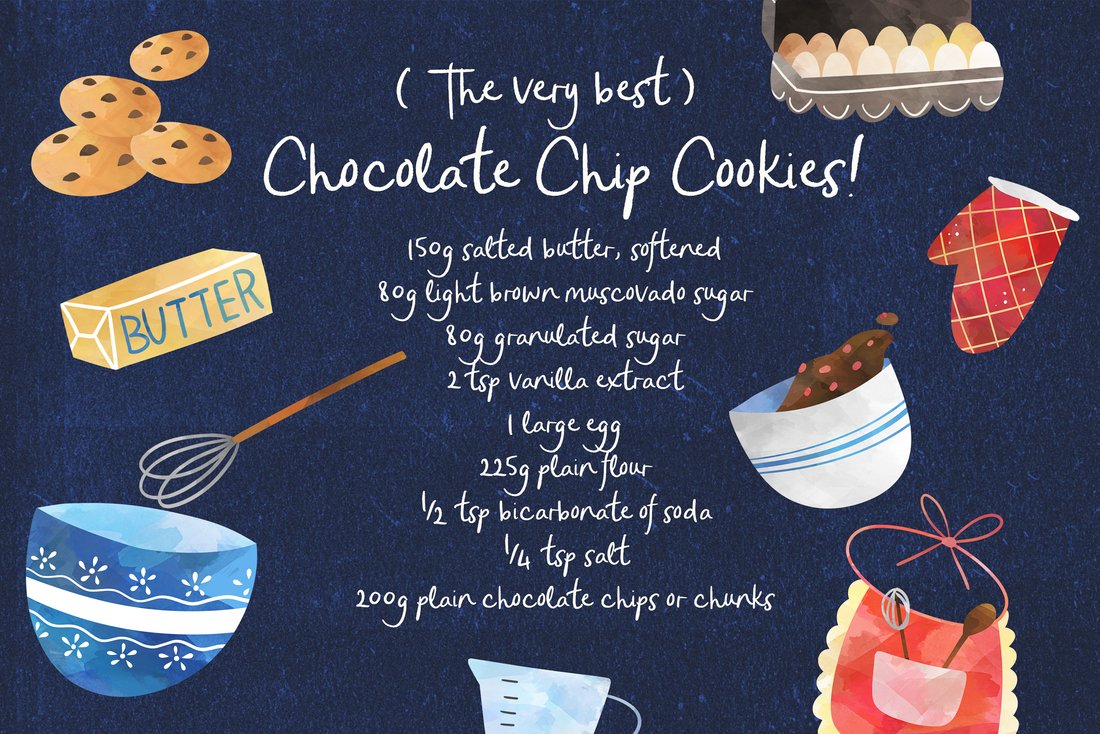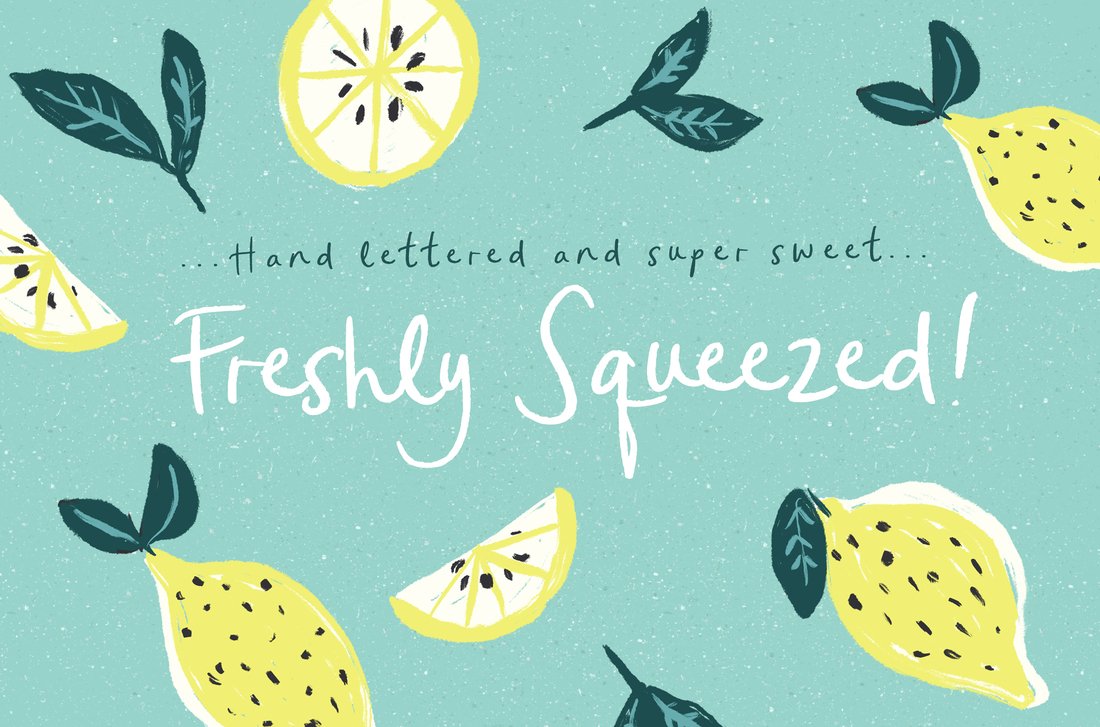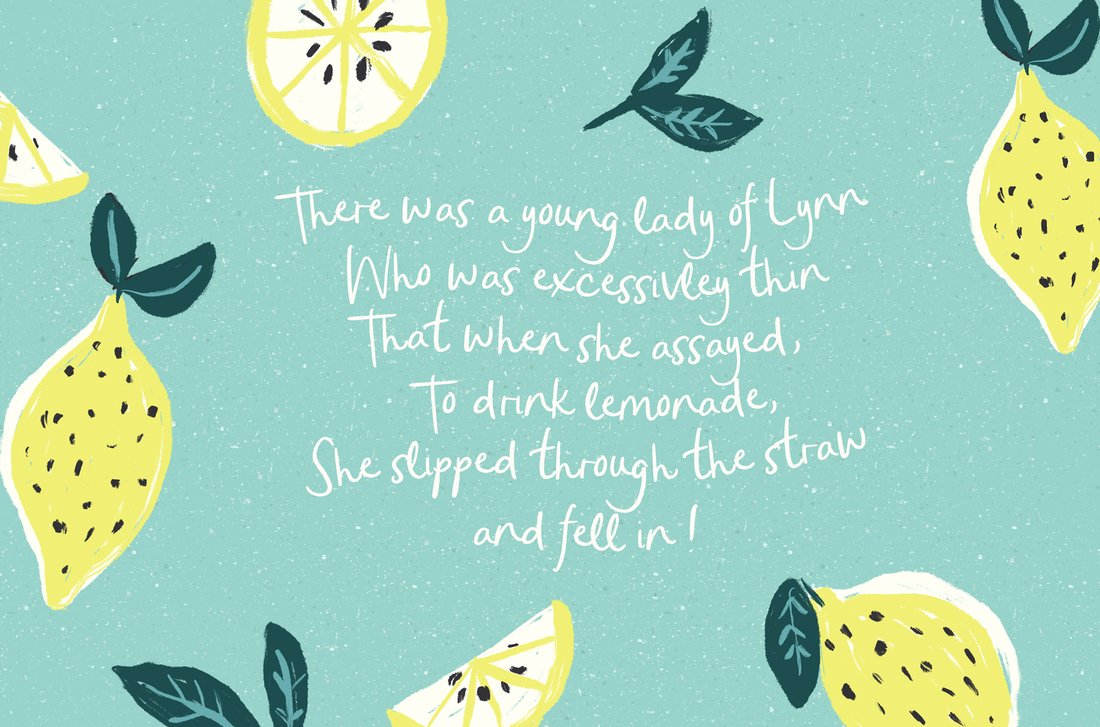
Freshly Squeezed Handwritten Font
The Freshly Squeezed Font also comes with some built-in natural looking ligatures - so make sure you turn those features on when you type to see them all :)
Freshly Squeezed Font by Nicky Laatz